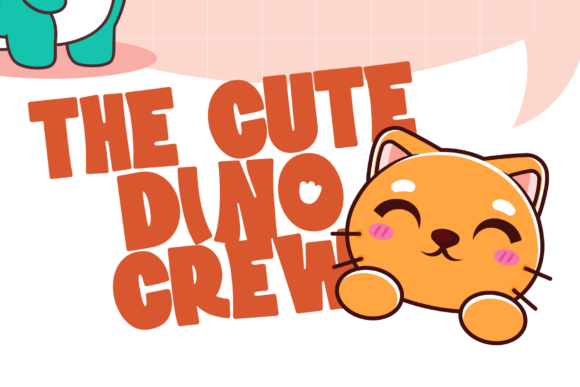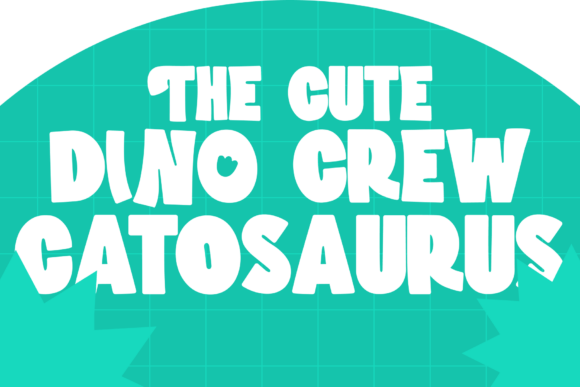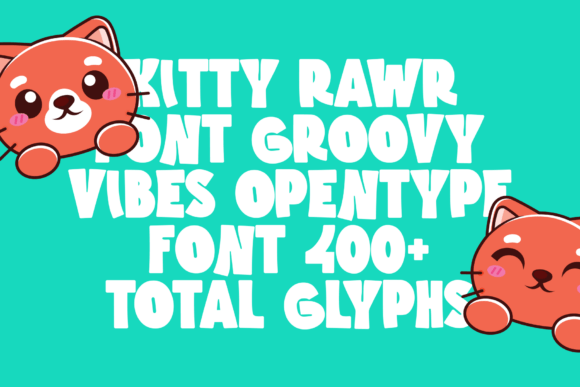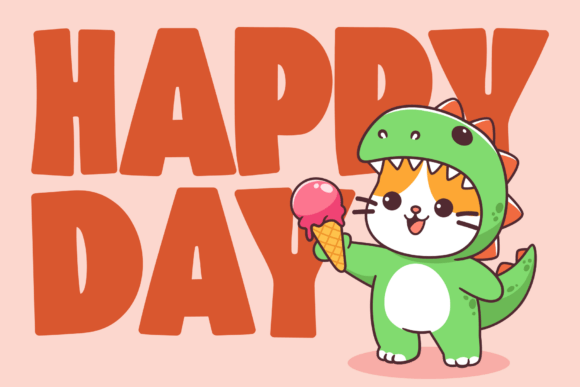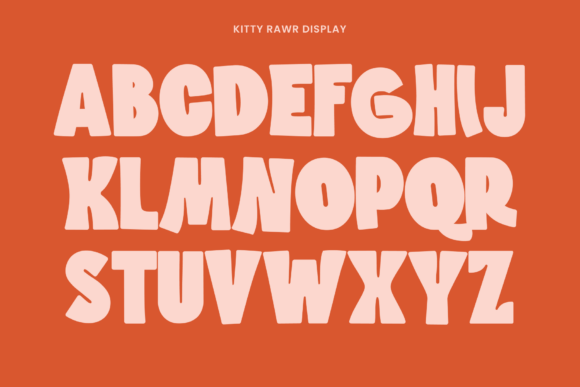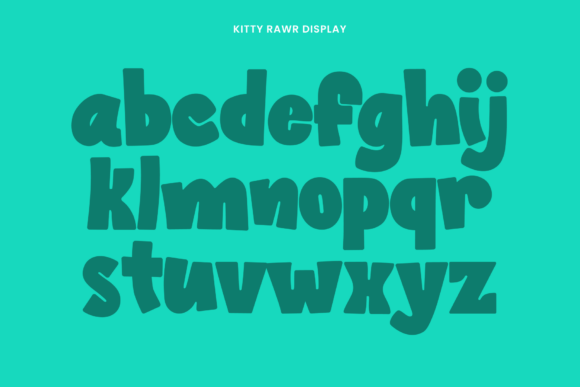
Introduction to Kitty Rawr Font Font
Fonts play a crucial role in design, and the Kitty Rawr Font font is a typeface that brings both character and versatility to any project. Whether you’re working on a branding project, a website, or a print design, the Kitty Rawr Font font offers a unique style that can elevate your work.
Get ready to βrawrβ with delight.
Introducing Kitty Rawr, the impossibly cute display font that combines groovy bubble letters with a playful cat-dino theme This font is bursting with personality, featuring rounded, bold characters that are friendly, energetic, and so much fun.
Key Features of Kitty Rawr Font Font
Why Choose Kitty Rawr Font Font?
The Kitty Rawr Font font is more than just a typeface β it’s a design tool that helps you communicate your message with style and clarity. Its unique character set and versatile design make it suitable for a wide range of applications, from elegant invitations to bold headlines.
With its carefully crafted letterforms and balanced proportions, the Kitty Rawr Font font ensures readability and visual appeal across all mediums.
What makes Kitty Rawr Font font special?
The Kitty Rawr Font font stands out with its unique design, exceptional readability, and versatility across various design applications.